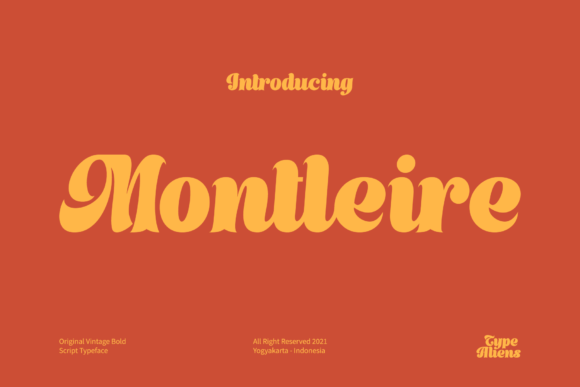
Journey into the realm of typography with Montleire Font, a script font that dances across the digital canvas with grace and elegance. Its bold strokes and retro charm evoke a sense of nostalgia, transporting you to an era where simplicity and style intertwined. Designed by the talented team at TypeAliens, Montleire is not just a font; it's an artistic expression that brings life to your creative endeavors.
With its LCD-friendly design, Montleire shines brightly on digital platforms, making it the perfect choice for website headlines, eye-catching logos, and captivating social media posts. Its strong and confident personality commands attention, ensuring your message cuts through the digital clutter and leaves a lasting impression.
But Montleire's versatility extends beyond the digital realm. Its timeless charm lends itself effortlessly to print projects, adding a touch of sophistication to invitations, posters, and branding materials. Whether you're creating a vintage-inspired flyer or designing a modern business card, Montleire effortlessly adapts, adding a touch of elegance to any project.
The beauty of Montleire lies in its ability to evoke emotions and establish a connection with your audience. Its nostalgic charm taps into the power of memory, creating a sense of familiarity and comfort. Whether you're crafting a heartfelt message or delivering a powerful statement, Montleire amplifies your words, adding depth and resonance to your communication.
So, embark on a creative journey with Montleire Font, and let your words dance with grace and confidence. Discover the power of typography and transform your designs into captivating masterpieces. Let Montleire be your muse, guiding you to create visual experiences that leave an indelible mark on the hearts and minds of your audience.